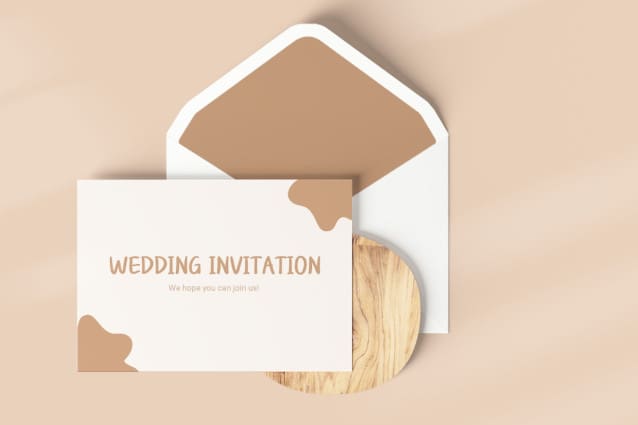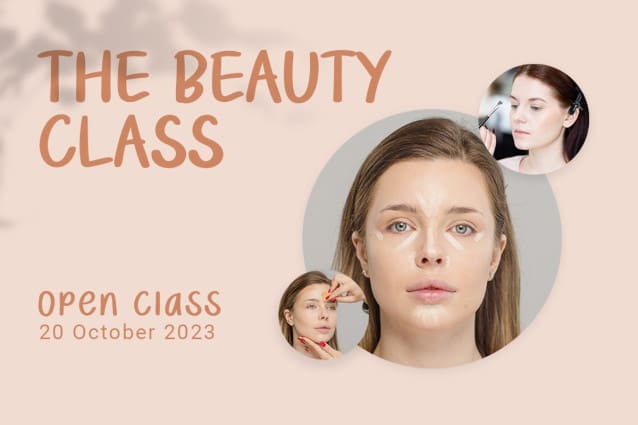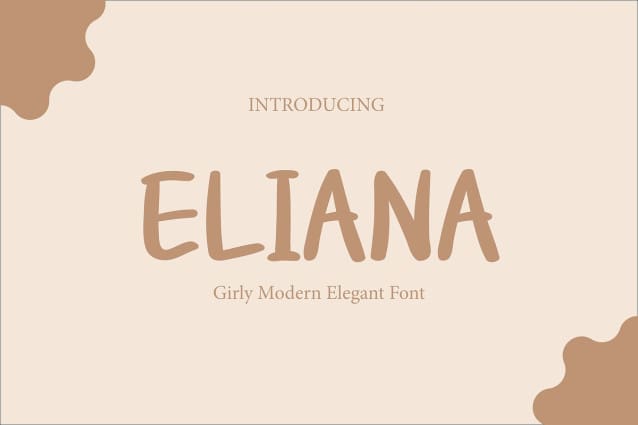
Eliana Handcrafted Font
Eliana Handcrafted Font, a delightful blend of girly charm, modern flair, and timeless elegance. With its graceful curves and sophisticated details, Eliana Font brings a touch of femininity to any design project. Whether you’re creating invitations for a stylish event, designing a logo for a trendy boutique, or crafting social media graphics with a chic aesthetic, Eliana Font adds a luxurious and captivating allure to your creations.
Designed to inspire creativity and sophistication, Eliana Font offers versatility and style in abundance. Its modern yet feminine design makes it the perfect choice for a wide range of applications, from fashion branding to editorial layouts. Elevate your designs to new heights with Eliana Font and let its charm and elegance transform your creative visions into stunning reality.